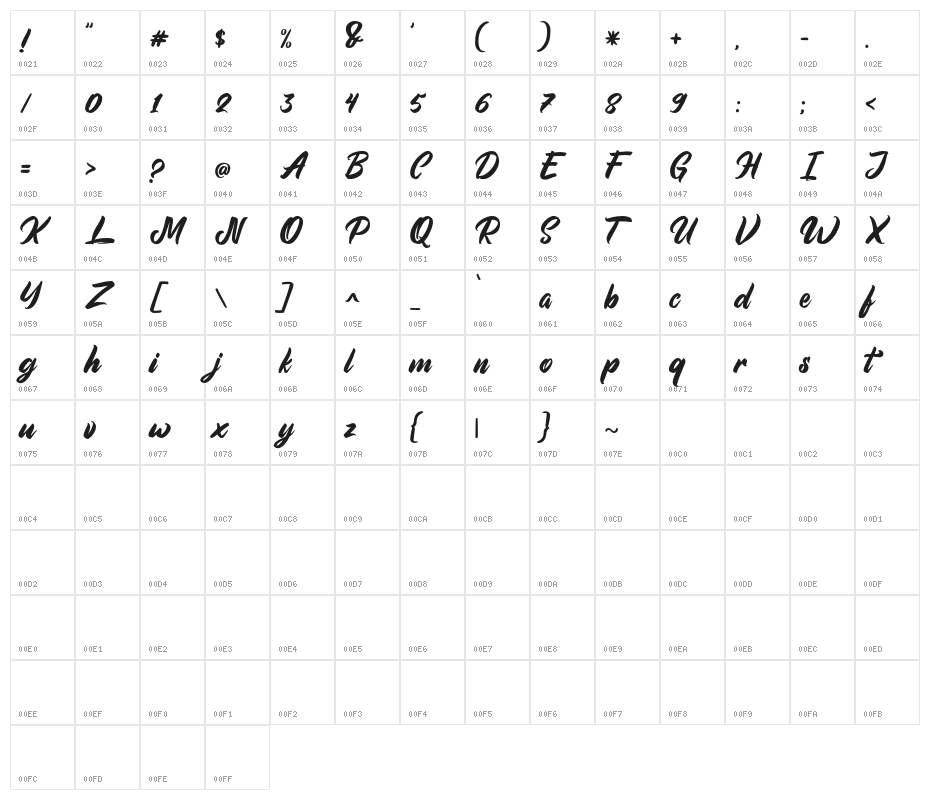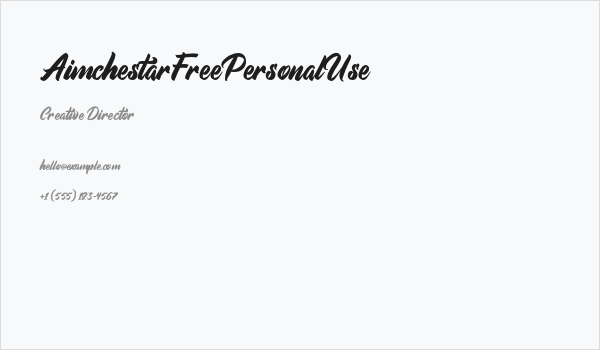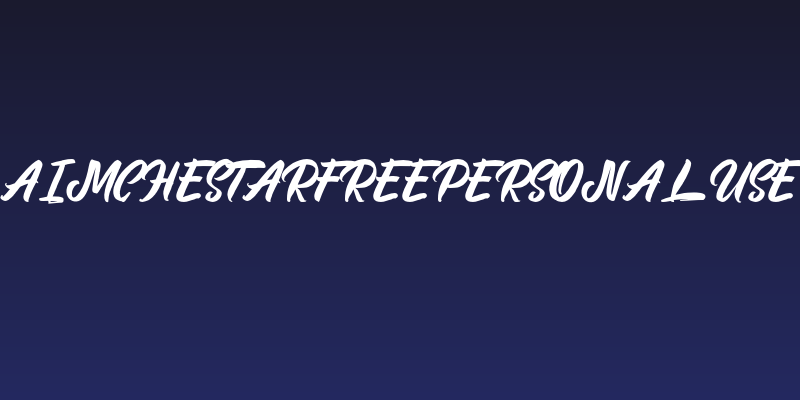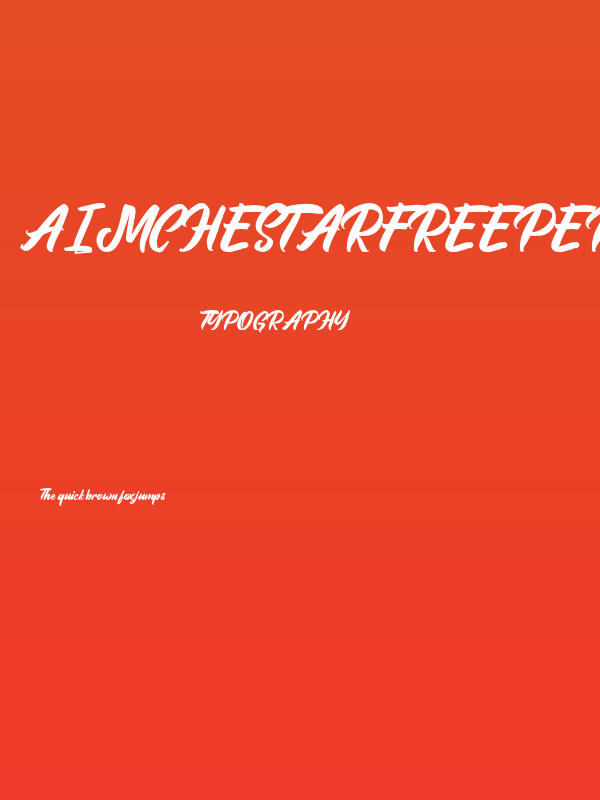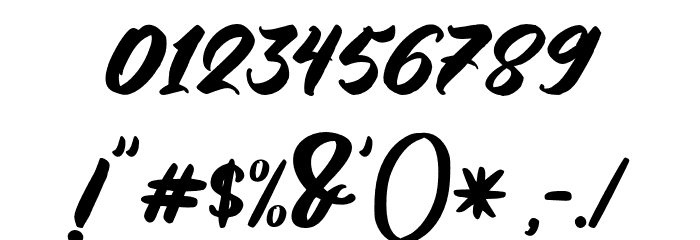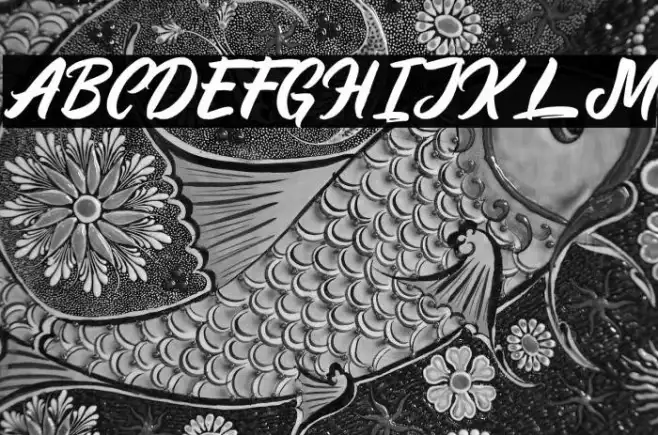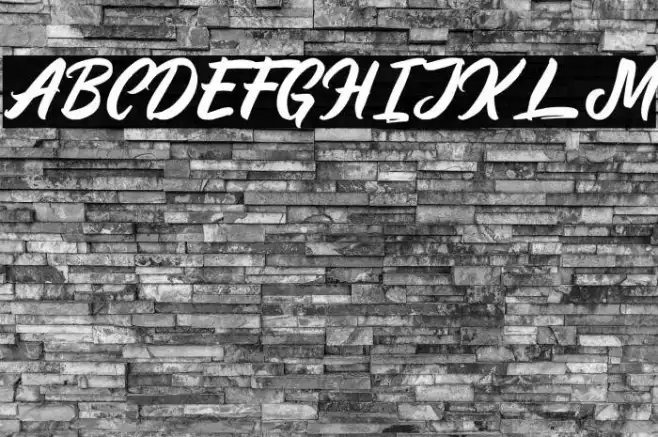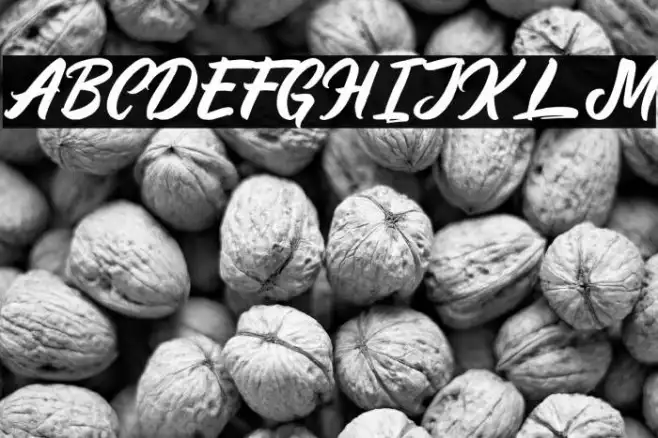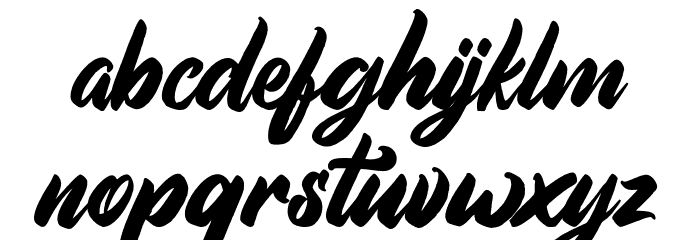
AimchestarFreePersonalUse Font
AimchestarFreePersonalUse Description
This font features a bold and flowing script style, characterized by its smooth, cursive letterforms that convey a sense of elegance and fluidity. The uppercase letters are slightly more elaborate, with sweeping curves and a dynamic presence, while the lowercase letters maintain a consistent flow, enhancing readability. The numerals are designed to match the overall style, with a playful yet sophisticated appearance. Special characters are integrated seamlessly, maintaining the font's cohesive aesthetic. This font's boldness and script nature make it ideal for creating impactful and stylish designs.
| Proposed Projects | Ideal for wedding invitations, branding, logos, and elegant packaging designs. |